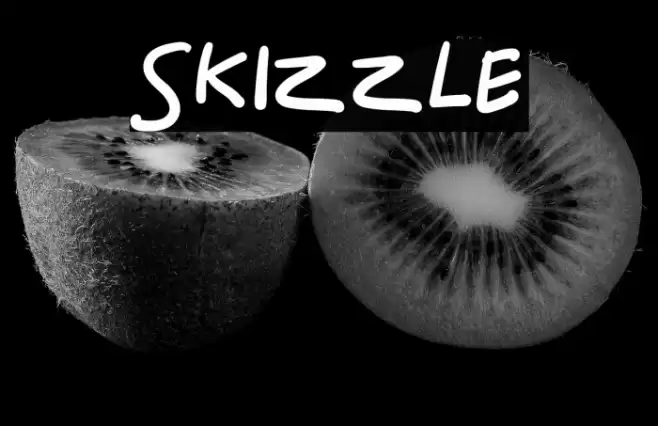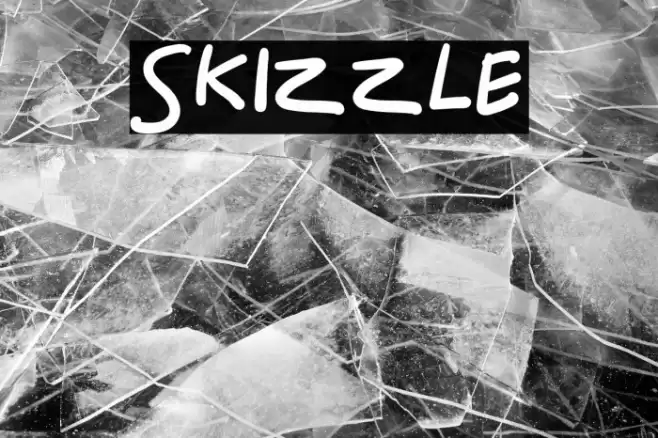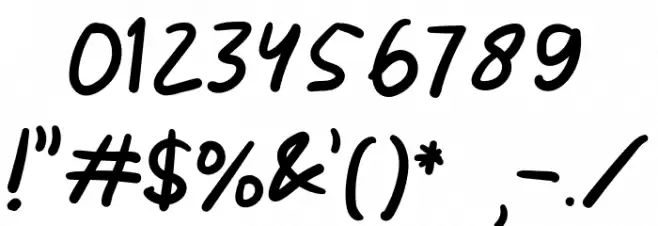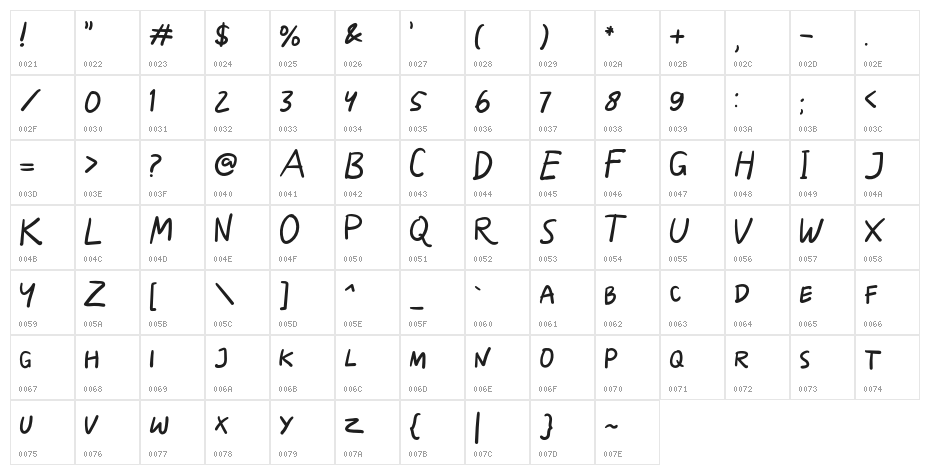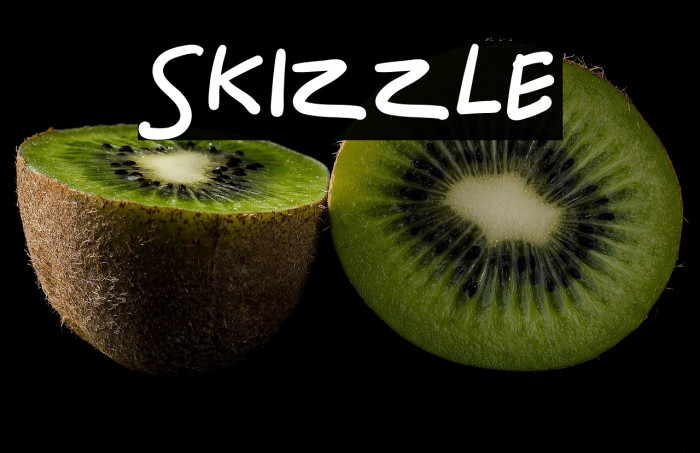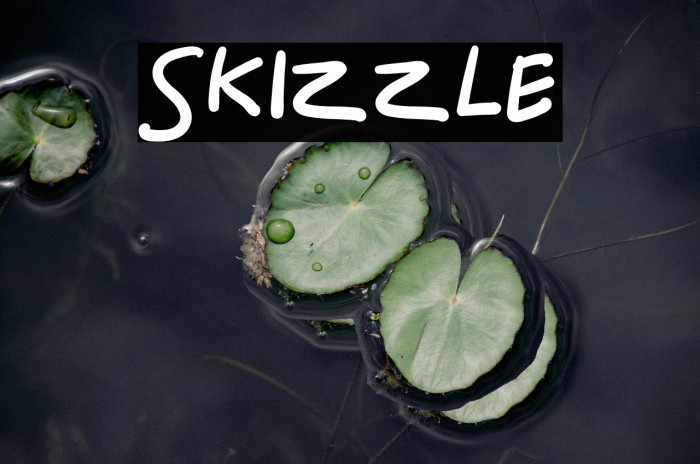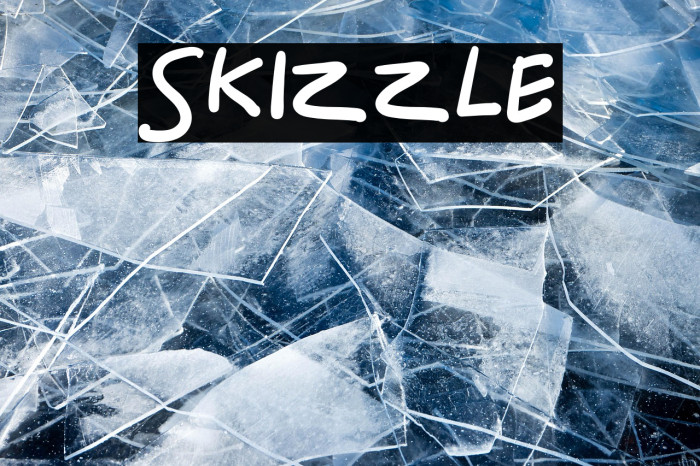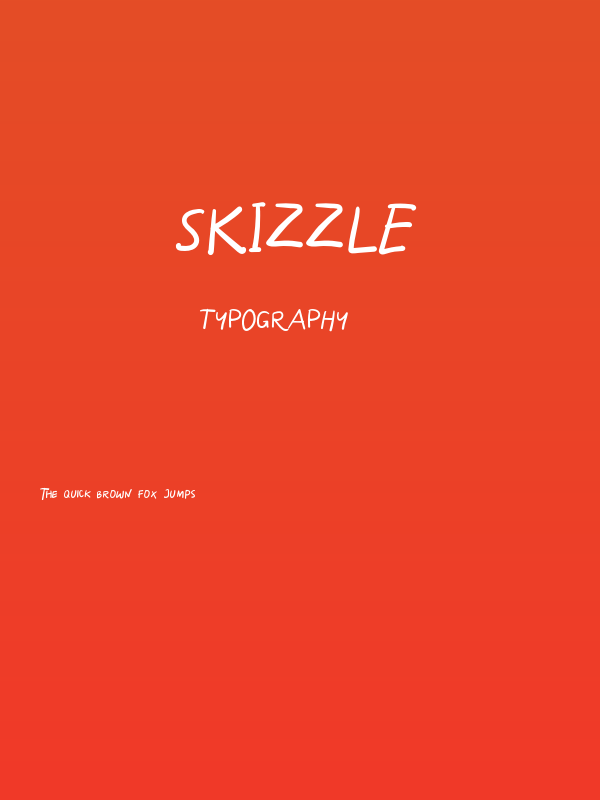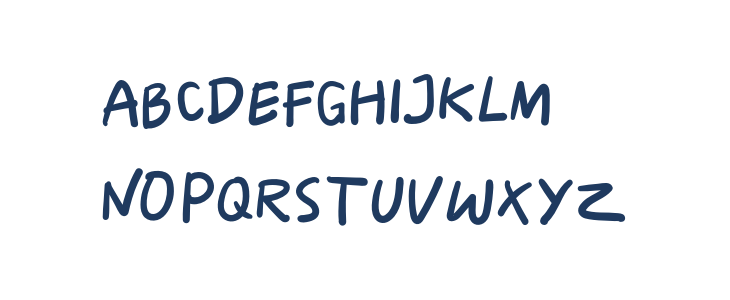
Skizzle Font
Skizzle Description
This font features a playful and casual handwritten style, characterized by its smooth, flowing lines and slightly uneven baseline. The uppercase letters are bold and rounded, giving a friendly and approachable feel. The lowercase letters maintain the same playful aesthetic, with a consistent stroke width that adds to the font's readability. Numbers and special characters are designed to match the overall style, ensuring a cohesive look across all text elements. This font's informal nature makes it ideal for projects that aim to convey warmth and personality.
A playful, casual handwritten font with smooth, flowing lines from Regular fonts.
- Proposed Projects: Ideal for greeting cards, children's books, informal branding, and social media graphics.
- Overall Style: Casual
- Use Case: Headlines, Informal text, Branding